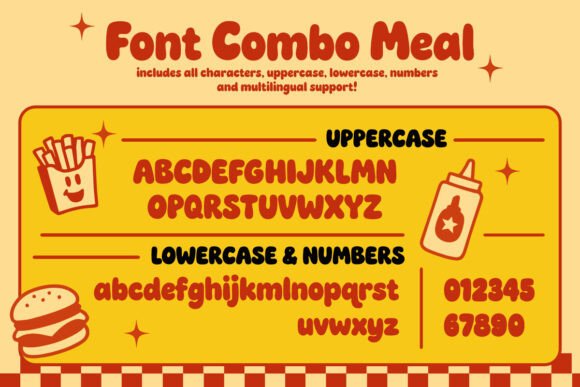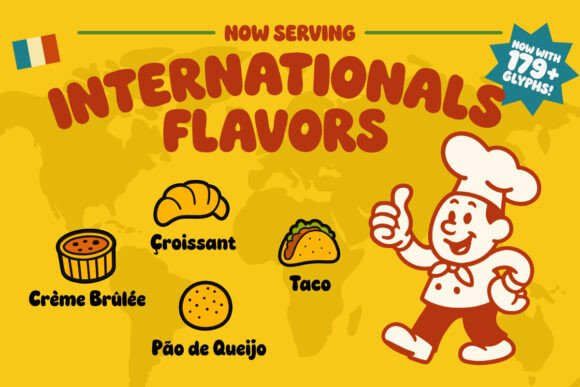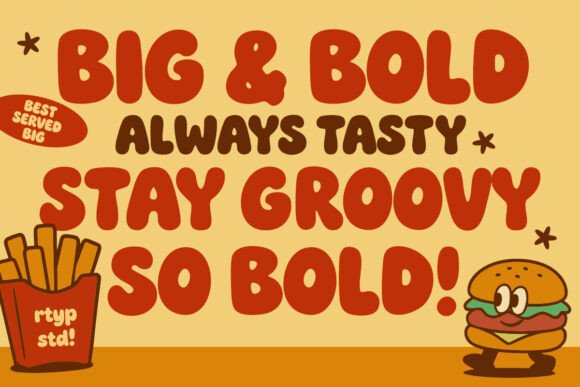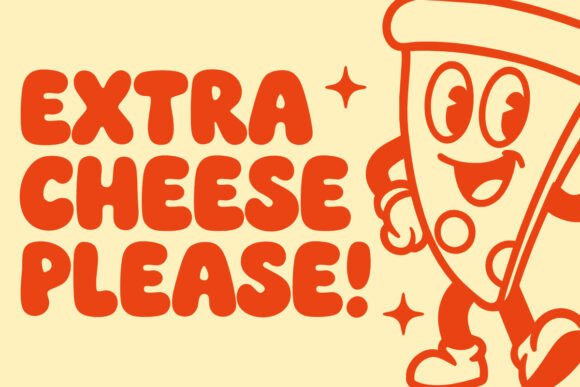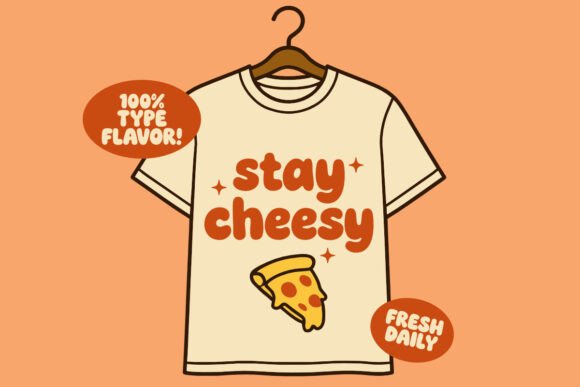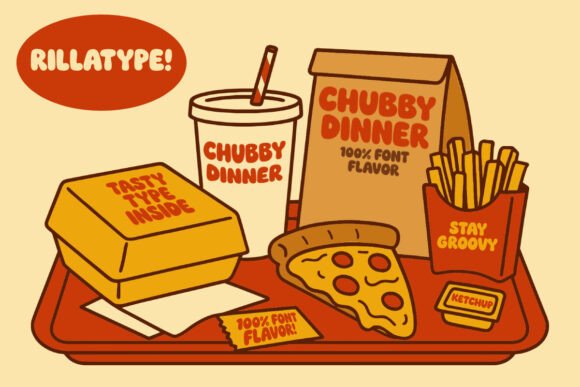
Introduction to Chubby Dinner Font
You know that moment when you’re browsing through a vintage diner or an old-school fast food joint, and the retro signs and menus catch your eye? The bold, playful typography seems to leap off the page, transporting you to a bygone era of good times and great food. That’s the magic of the Chubby Dinner Font – a bold and bubbly display font that captures the essence of retro charm and serves it up with a side of personality.
As a designer, you’re always on the lookout for high-quality design resources that can elevate your creative projects. And let’s be honest, a font like Chubby Dinner Font is a game-changer. With its transparent background and friendly curves, it’s the perfect addition to any design – from logos and packaging to social media graphics and posters.
Key Features of Chubby Dinner Font
- High-quality design for creative projects, suitable for various applications such as menus, labels, and advertisements.
- Comes with a transparent background, allowing for easy layering and customization.
- Features a unique, playful style that is perfect for adding a touch of whimsy to any design project.
- Includes a range of characters, including uppercase and lowercase letters, numbers, and special symbols.
Honest Review: Chubby Dinner Font
I recently had the chance to experiment with the Chubby Dinner Font, a free download that caught my attention due to its unique, playful vibe. As a designer, I was excited to see how it would perform in a creative project.
What works well: ✨ The Chubby Dinner Font is incredibly versatile and can be used for a wide range of projects, from food-related branding to children’s book illustrations. The font’s high quality and smooth lines make it a pleasure to work with. Additionally, the transparent background allows for seamless layering and customization.
What’s not so great: ⚠️ While the Chubby Dinner Font is a great design resource, it may not be the best choice for projects that require a more formal or professional tone. The font’s playful nature may not be suitable for all audiences, and some users may find it too whimsical for certain applications.
Overall impression: I was pleasantly surprised by the Chubby Dinner Font’s performance in my creative project. Its unique style and high quality make it a valuable addition to any designer’s toolkit. If you’re looking for a fun and versatile font for your next project, the Chubby Dinner Font is definitely worth checking out.
- High quality and smooth lines
- Transparent background for seamless layering
- Unique, playful vibe
The Chubby Dinner Font is perfect for use in a variety of creative projects, including menus, invitations, and social media graphics. Its unique, playful style makes it a great addition to any design.